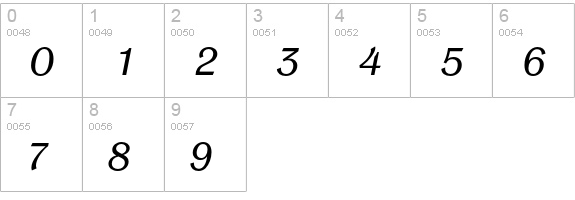
PanacheEF-BookItalic Font Details
Introducing PanacheEF-BookItalic, a captivating and elegant font that effortlessly blends modern sophistication with timeless charm. Designed with a touch of finesse, this font showcases a delicate balance between classic and contemporary elements, making it truly versatile for a wide range of design projects. PanacheEF-BookItalic exudes an air of refinement, with its gracefully slanted italic style that adds a touch of flair to any text. Its slender and flowing letterforms create a sense of movement, while maintaining legibility and readability. Whether used for headings, body text, or even logos, this font adds a touch of elegance and professionalism to any design. One of the best aspects of PanacheEF-BookItalic is that it is freely available to download at FontsMarket.com. This means that designers, creatives, and enthusiasts alike can access this stunning font without any cost or restrictions. With its high-quality design and immeasurable potential, PanacheEF-BookItalic truly stands out as a valuable asset in any designer's toolkit. With its extensive character set, PanacheEF-BookItalic supports multiple languages, allowing you to effortlessly communicate your message across different cultural and linguistic boundaries. Its refined and sophisticated aesthetic makes it perfect for a variety of design applications, including branding, packaging, editorial design, and more. Embrace the beauty and versatility of PanacheEF-BookItalic as it effortlessly elevates your designs to new heights. Download this remarkable font today from FontsMarket.com and experience the freedom to create with style and panache.